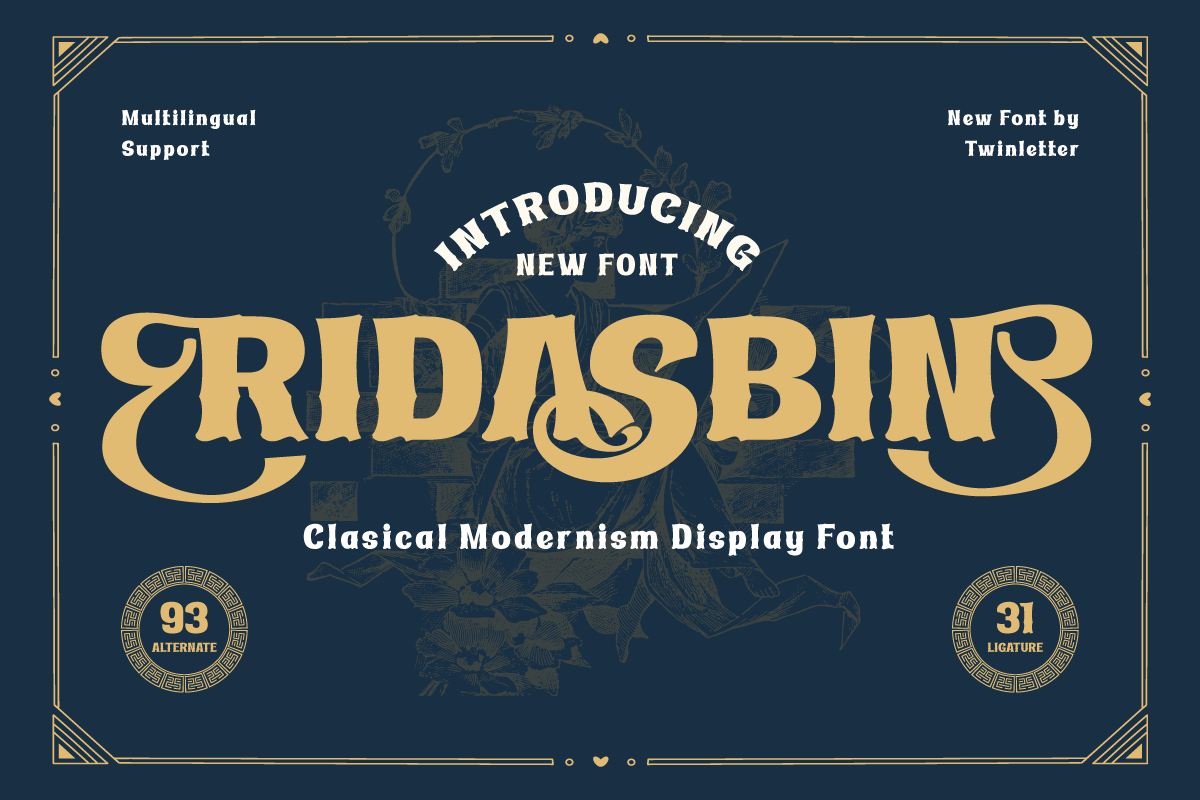
Ridasbin Font
Ridasbin, a loyal friend in the world of design! With this classic serif font, you can feel the luxury of classic modernism in every project you work on. Whether you are creating posters, brochures, or other designs, Ridasbin will give you an elegant and unforgettable touch. The elegant and classy serif style on Ridasbin will make your designs look professional and classy. Each letter is designed with subtle details and perfect proportions, creating a timeless look. Not only that but Ridasbin is also equipped with special features such as ligatures and alternative characters that allow you to experiment with various interesting letter combinations.